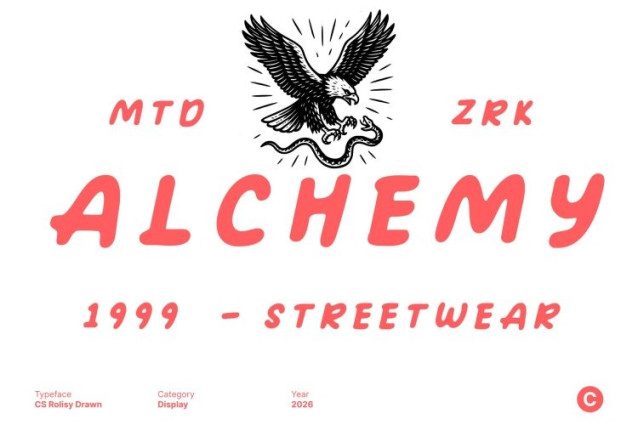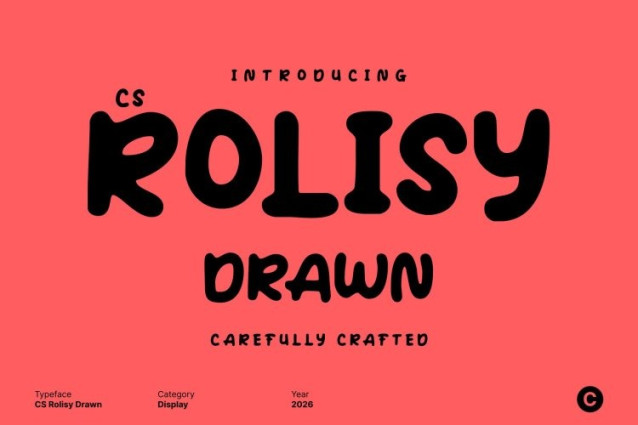
CS Rolisy Drawn Font
CS Rolisy Drawn Font This is a modern display font infused with a cheerful handwritten personality and a subtle drawn texture. Designed to bring joy and expressiveness to typography, it blends clean, balanced letterforms with organic imperfections, creating a look that feels both stylish and genuinely human.
Clean Structure with Hand-Drawn Warmth
Each character combines precise construction with a natural handwritten rhythm. Smooth lines and thoughtful spacing ensure clarity and impact, while the drawn effect introduces soft irregularities that add warmth and approachability. The result is a font that feels modern, friendly, and visually engaging.
Expressive, Positive, and Full of Character
This font radiates optimism through its playful shapes and lively proportions. Its cheerful energy enhances headlines, titles, and short text, making designs feel upbeat, authentic, and full of personality without becoming overwhelming.
Perfect for Creative and Modern Applications
Versatile and contemporary, this font performs beautifully in titles, posters, branding, packaging, editorial layouts, and social media graphics. Whether for lifestyle brands or creative campaigns, this font delivers a fresh, modern impression enriched by hand-drawn charm and expressive detail.